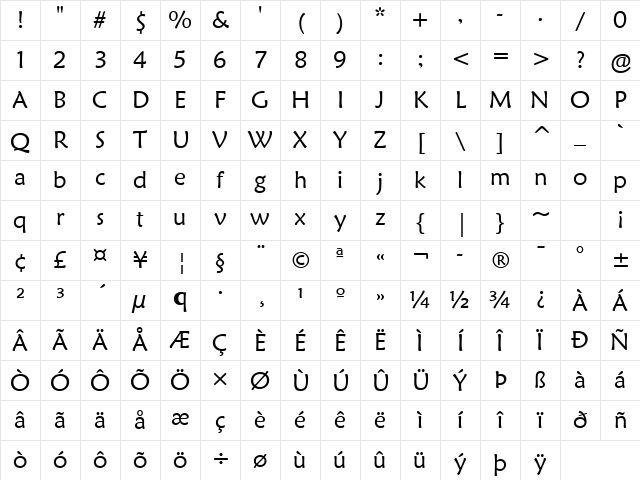
Complete Maiandra GD Regular glyph index. Displaying only characters natively supported by Maiandra GD Regular font.
Maiandra GD is a composed and adaptable typeface that performs quietly and consistently across a wide range of design contexts.
Pro Tip: Use Maiandra GD in both headline and body roles to test its range before committing to a single application.